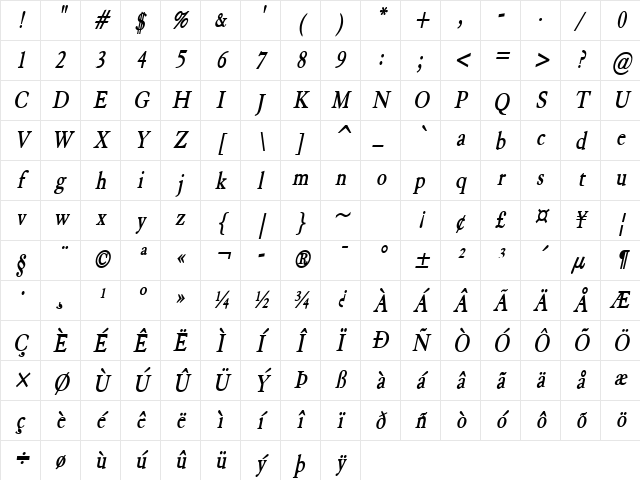
Elephant-Condensed Bold Italic
Elephant-Condensed Family
Elephant-Condensed Bold Italic
Complete Elephant-Condensed Bold Italic glyph index. Displaying only characters natively supported by Elephant-Condensed Bold Italic font.
Design Context for Elephant-Condensed
Elephant-Condensed is a composed and adaptable typeface that performs quietly and consistently across a wide range of design contexts. The slanted form adds forward momentum and visual energy. Its bold stroke weight gives it real presence on the page. Its narrow stance lets it pack a punch even in space-constrained designs.
Pro Tip: Use Elephant-Condensed for emphasis, pull quotes, and subheadings where its slanted energy can add rhythm to the layout.